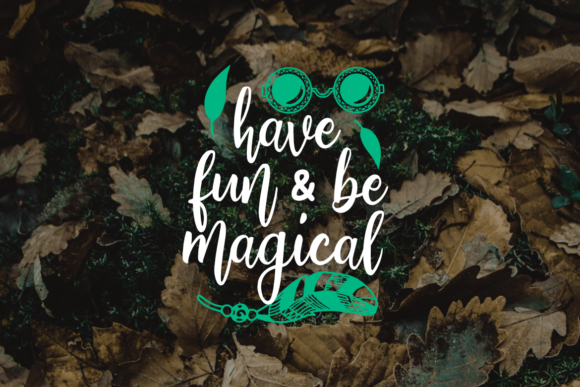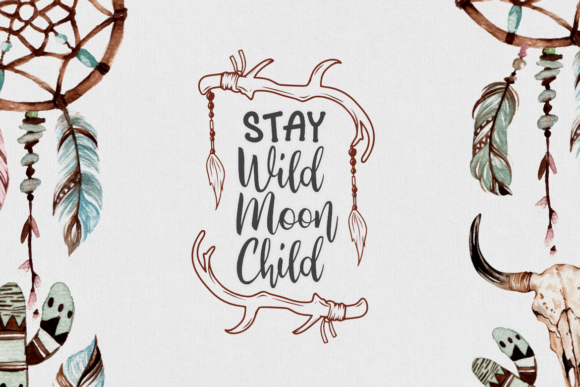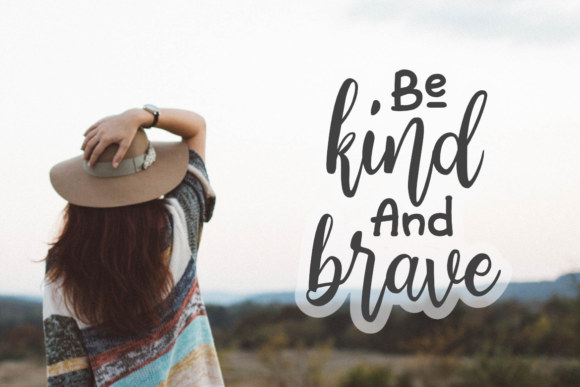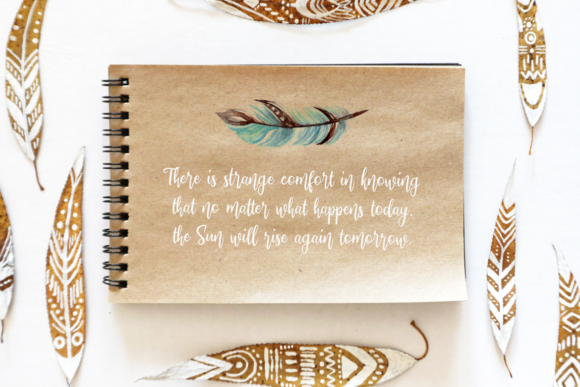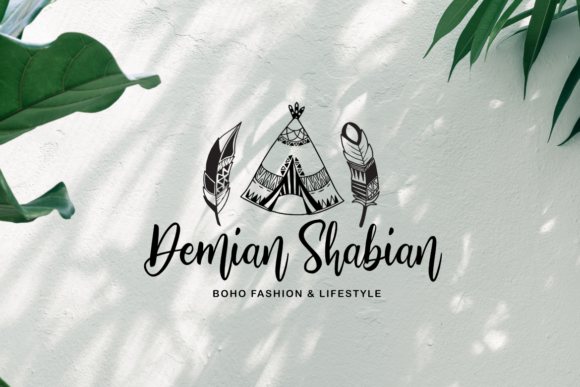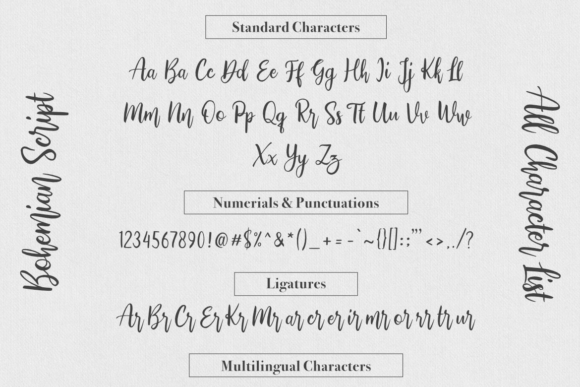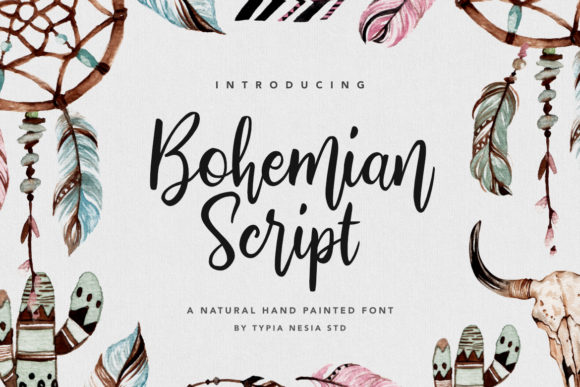
Introducing Bohemian Script Font: Adding a Touch of Authenticity to Your Designs
Are you tired of using the same old fonts in your designs? Do you want to add a touch of uniqueness and personality to your work? Look no further than the Bohemian Script Font. This beautiful and fresh handwritten font is perfect for designers and crafters who want to give their designs an organic feel. With its authentic and stylish look, Bohemian Script Font is sure to put a new spin on any design idea.
What is Bohemian Script Font?
Bohemian Script Font is a type of handwritten font that is characterized by its free-flowing and organic feel. It is designed to mimic the look of handwritten script, with each letter and word flowing smoothly into the next. This font is perfect for designs that require a personal touch, such as invitations, greeting cards, and social media graphics.
Features of Bohemian Script Font
So, what makes Bohemian Script Font so special? Here are just a few of its key features:
- Organic feel: Bohemian Script Font has a natural, handwritten look that gives designs a unique and authentic feel.
- Free-flowing script: The font features a smooth, flowing script that is perfect for creating beautiful and elegant designs.
- High-quality design: Bohemian Script Font is designed with high-quality graphics, ensuring that it looks great in any design.
- Easy to read: Despite its ornate look, Bohemian Script Font is easy to read, making it perfect for designs that require a lot of text.
Uses for Bohemian Script Font
So, what can you use Bohemian Script Font for? The possibilities are endless! Here are a few ideas to get you started:
- Invitations: Use Bohemian Script Font to create beautiful and elegant invitations for weddings, parties, and other special events.
- Greeting cards: Add a personal touch to your greeting cards with Bohemian Script Font.
- Social media graphics: Use Bohemian Script Font to create eye-catching social media graphics that will help you stand out from the crowd.
- Branding: Bohemian Script Font is perfect for creating unique and memorable brand identities.
Tips for Using Bohemian Script Font
Here are a few tips for using Bohemian Script Font in your designs:
- Use it sparingly: While Bohemian Script Font is beautiful, it can be overwhelming if used too much. Use it sparingly to add a touch of elegance to your designs.
- Pair it with other fonts: Bohemian Script Font looks great when paired with other fonts. Try pairing it with a bold font for a striking contrast.
- Experiment with colors: Bohemian Script Font looks great in a variety of colors. Experiment with different colors to find the one that works best for your design.
In conclusion, Bohemian Script Font is a beautiful and fresh handwritten font that is perfect for designers and crafters who want to add a touch of authenticity to their designs. With its organic feel, free-flowing script, and high-quality design, Bohemian Script Font is sure to put a new spin on any design idea. Whether you’re creating invitations, greeting cards, social media graphics, or branding materials, Bohemian Script Font is a great choice. So why not give it a try and see the difference it can make in your designs?